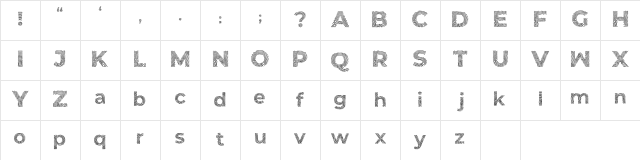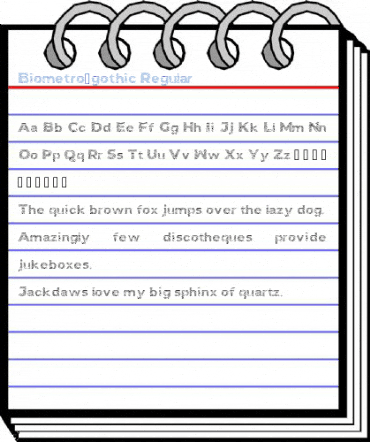
Biometro_gothic takes a clean, functional approach - its unadorned letterforms prioritise legibility and work reliably across screen and print environments.
Font Pairing: Works well alongside a characterful serif or display font that can carry the expressive load while Biometro_gothic handles the functional copy.
Pro Tip: Use Biometro_gothic for UI labels, navigation, and short-form body copy where clean legibility is the priority.